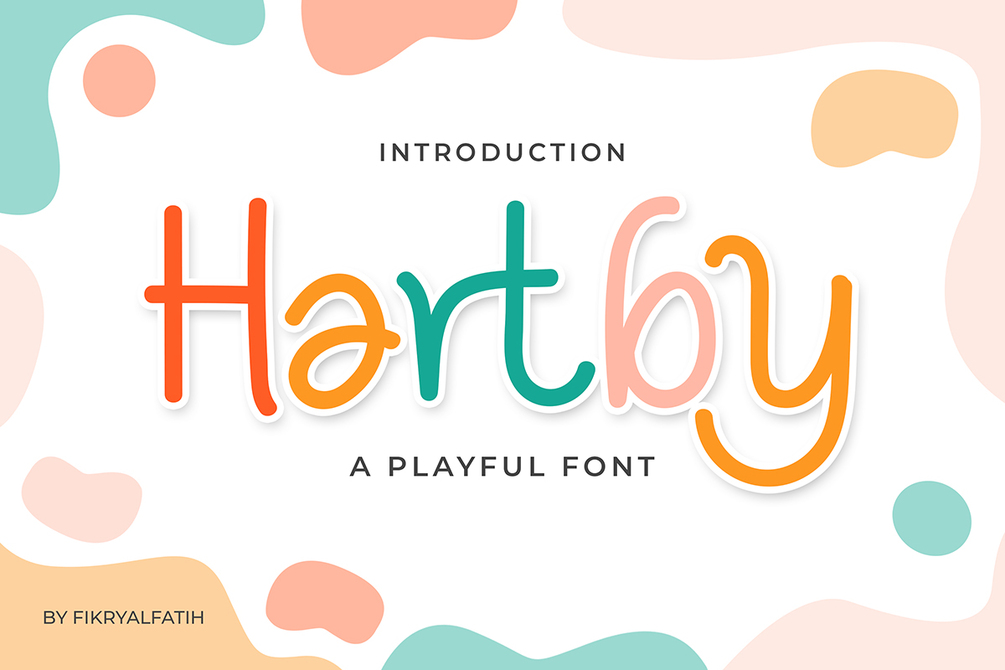
Introducing a meticulously crafted font. Designed for versatility and ease of use, this font is perfect for creating striking logos, band merchandise, album covers, posters, and more. This user-friendly typeface allows for easy customization, enabling you to fine-tune your text effortlessly to achieve the precise look you desire.
Unlock the full potential of your creative projects with this bold and unique aesthetic. Whether you're designing for a metal band, crafting eye-catching merchandise, or creating captivating promotional material, this font delivers the edge you need to stand out. Don't miss the chance to elevate your work and make a lasting impression!